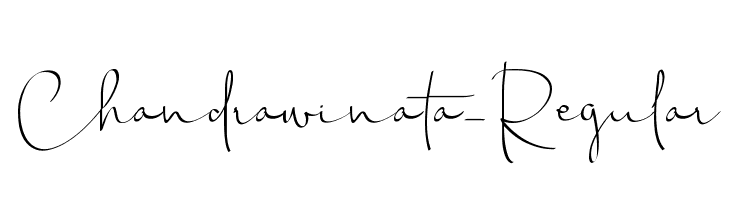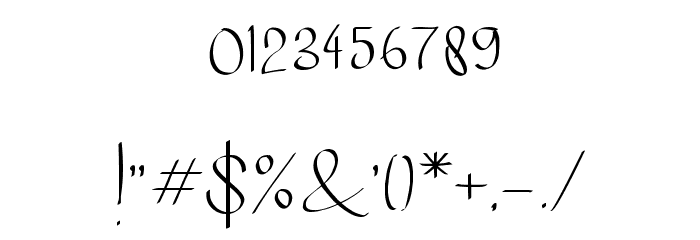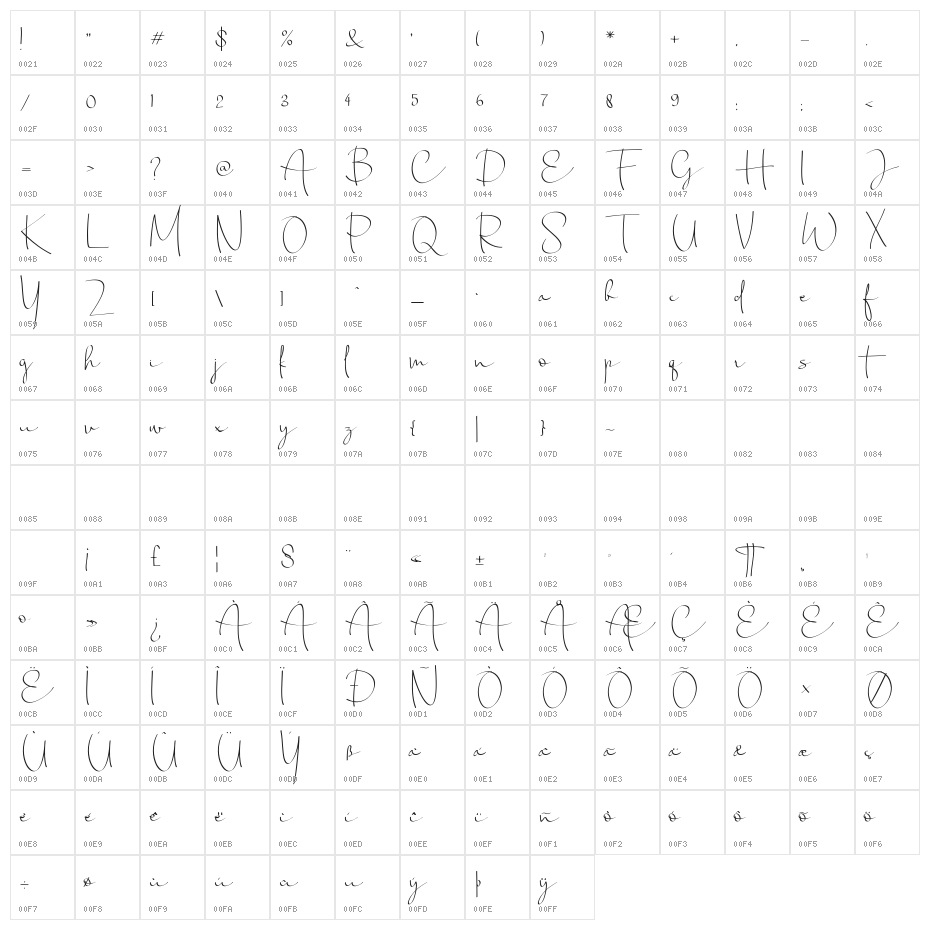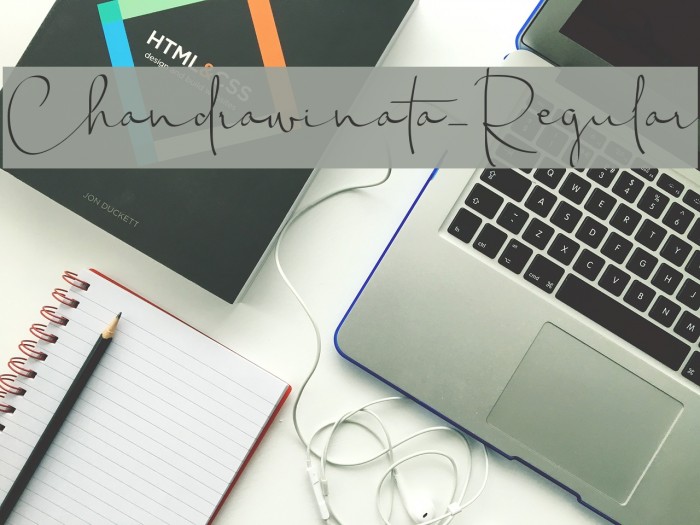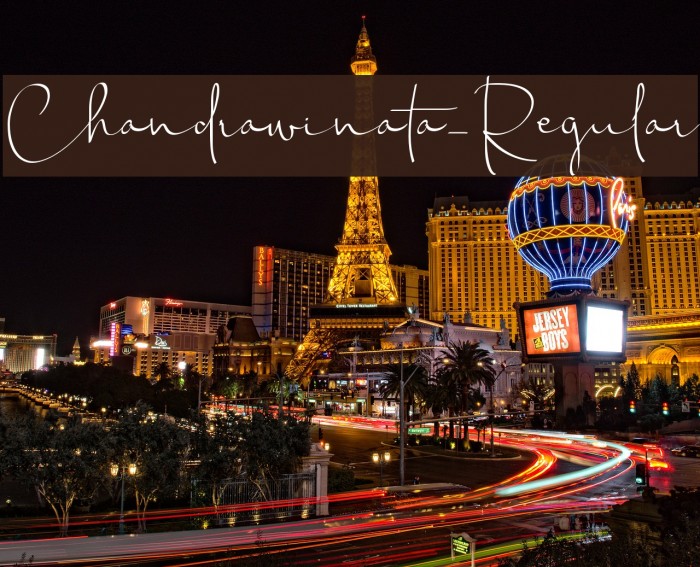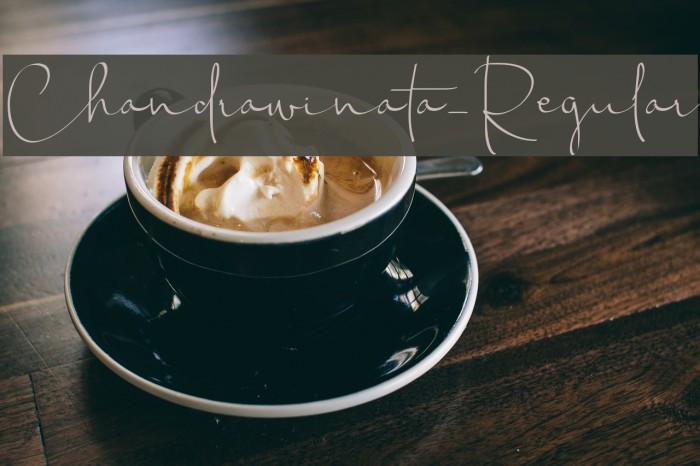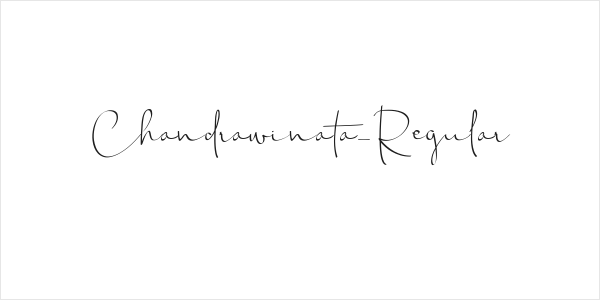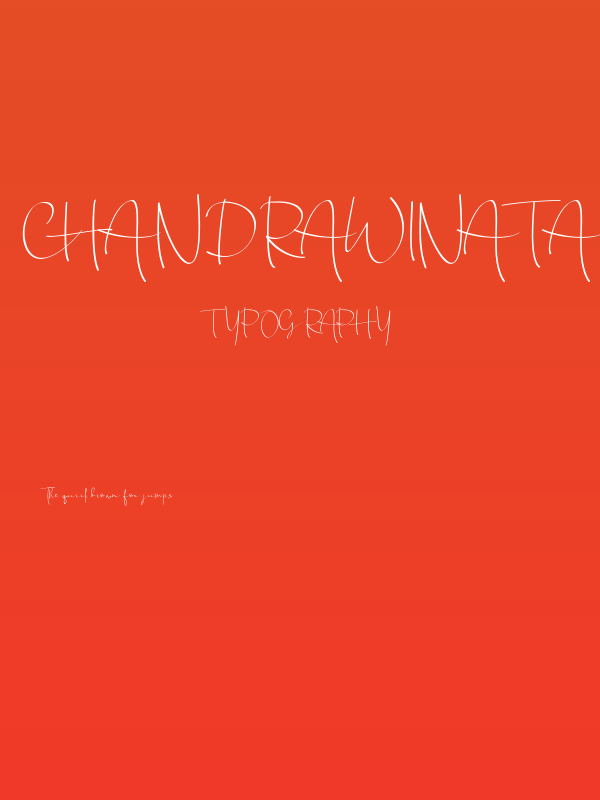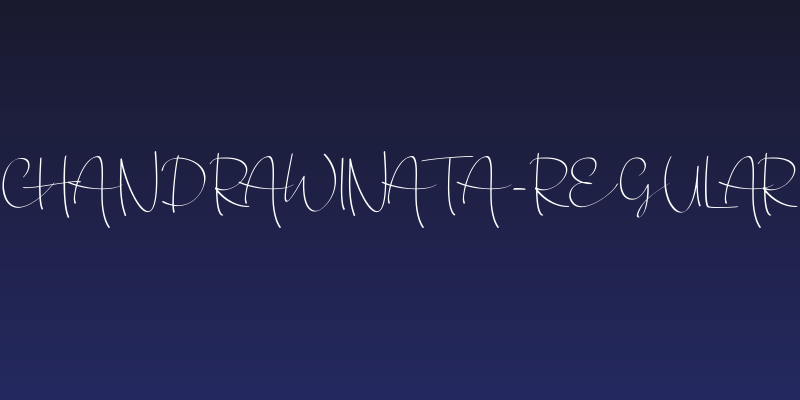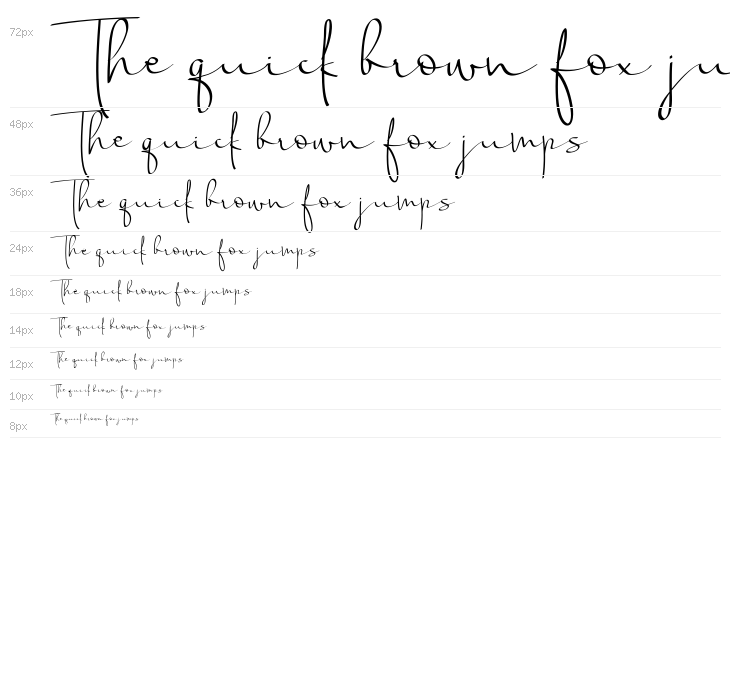
Chandrawinata-Regular Font
Chandrawinata-Regular Description
This font exudes a modern, handwritten style with a touch of elegance, characterized by its flowing, cursive letterforms. The uppercase letters are tall and slender, with a slight slant that adds a dynamic feel. The lowercase letters maintain a consistent flow, with some characters featuring loops and swashes that enhance the script-like appearance. The numerals are clear and legible, maintaining the overall aesthetic. Special characters are designed with the same fluidity, ensuring a cohesive look across all symbols. The font's thin strokes and varying line thicknesses contribute to a medium contrast, adding visual interest without compromising readability.
| Proposed Projects | Ideal for wedding invitations, personal branding, greeting cards, and elegant product packaging. |